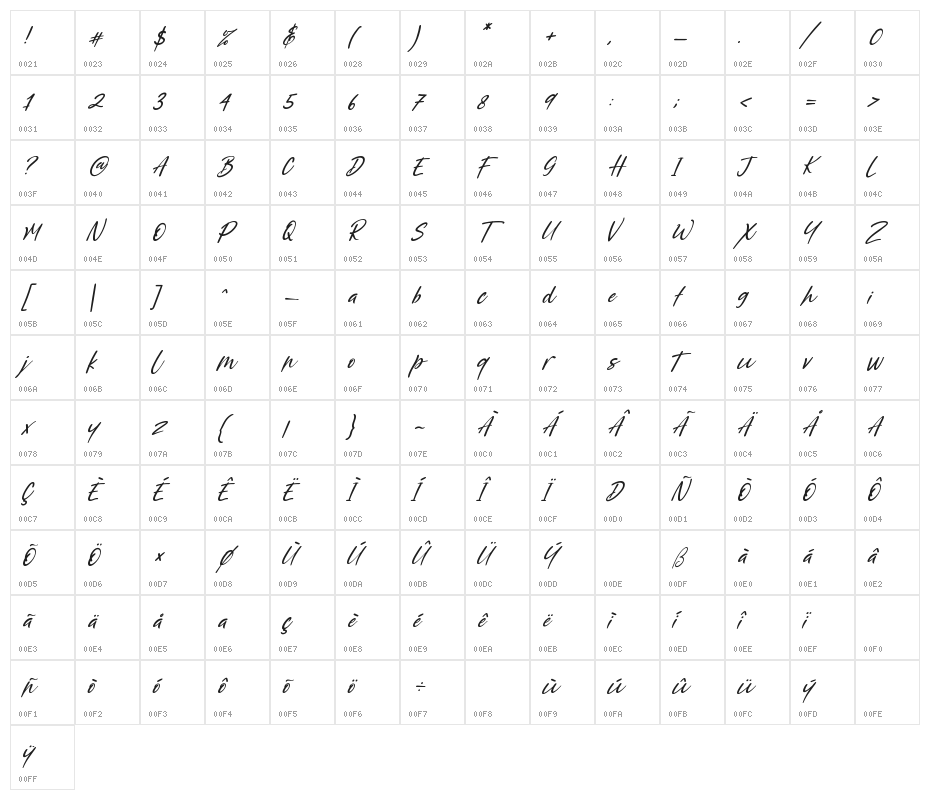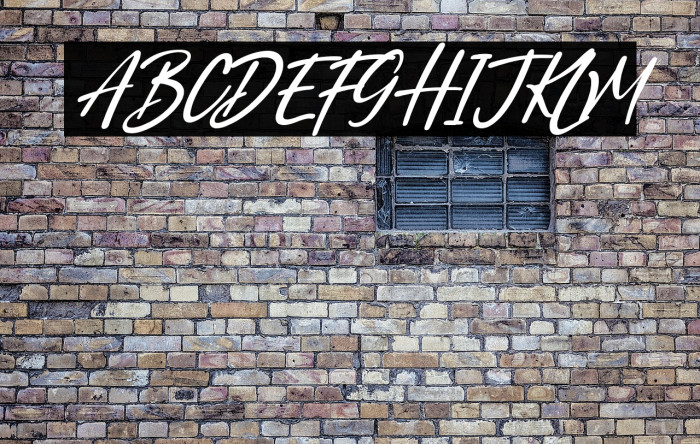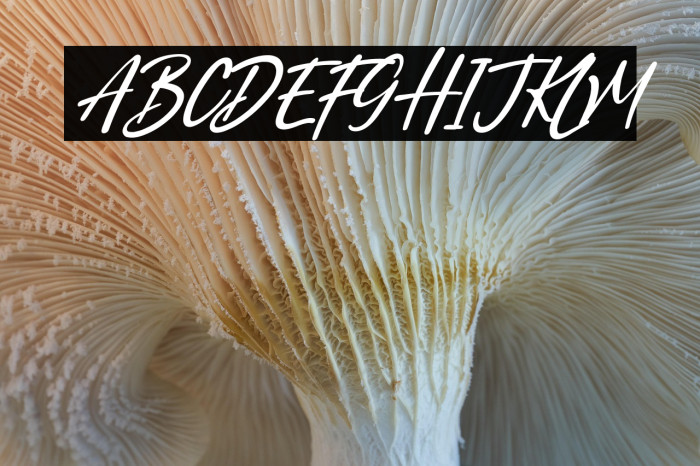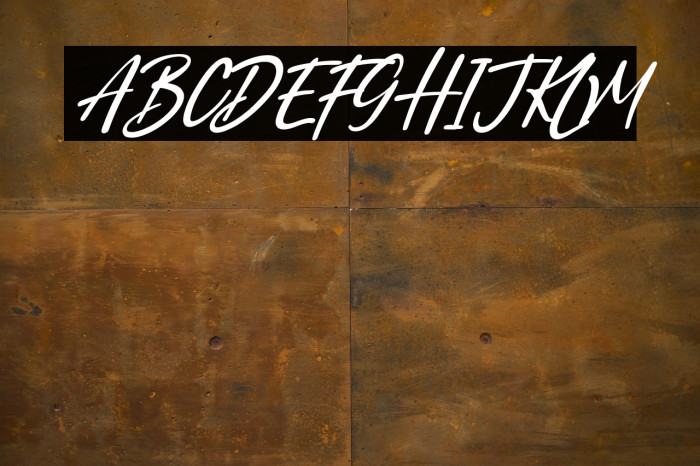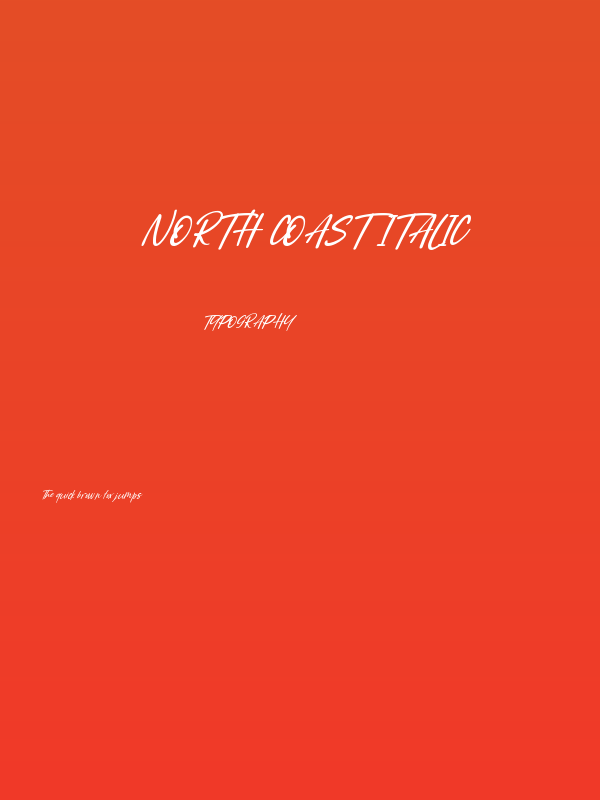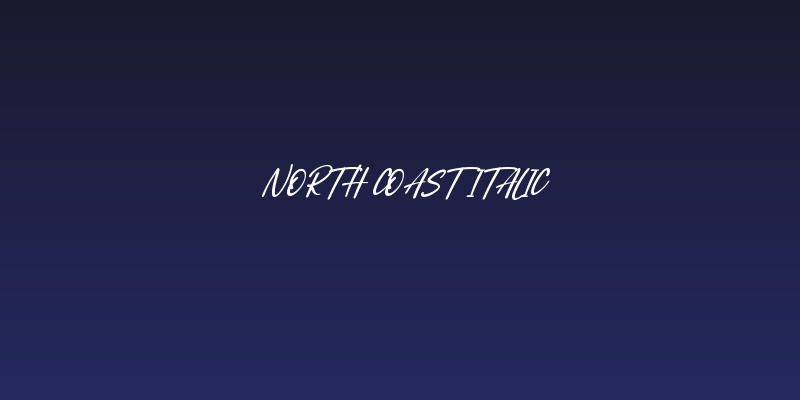
North Coast Italic Font
North Coast Italic Description
This font features a dynamic and flowing script style, characterized by its elegant, cursive letterforms that convey a sense of movement and sophistication. The uppercase letters are bold and sweeping, while the lowercase letters maintain a consistent slant, enhancing the font's fluidity. The numerals and special characters are designed with the same cursive flair, ensuring a cohesive look across all text elements. The overall appearance is both stylish and legible, making it suitable for a variety of design applications.
| Overall Style | Elegant, Flowing |
| Proposed Projects | Ideal for wedding invitations, greeting cards, branding, and logo design where a touch of elegance is desired. |